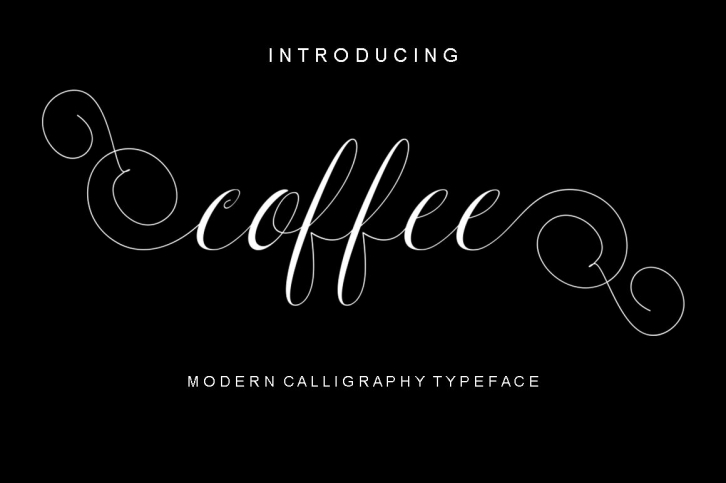
Coffee Script calligraphy is a new modern script calligraphy font with an irregular baseline. Trendy and feminine style. Coffee Script looks lovely on wedding invitations, thank you cards, quotes, greeting cards, logos, business cards and more. Perfect for using in ink or watercolour. Including initial and terminal letters, alternates, ligatures and multiple language support.Files included: